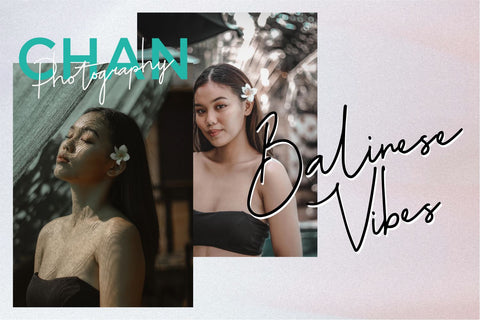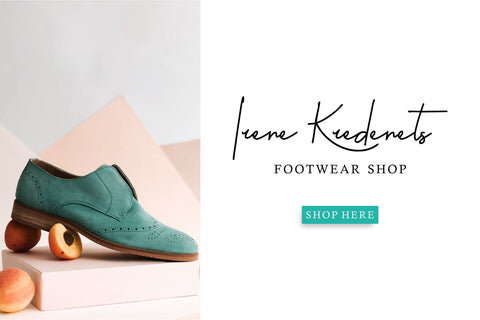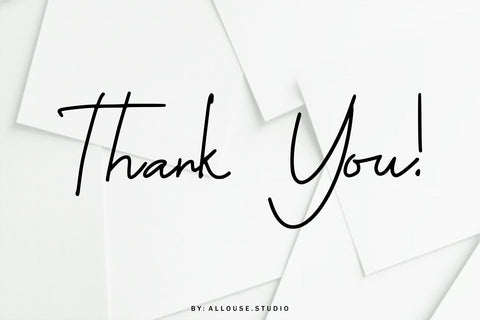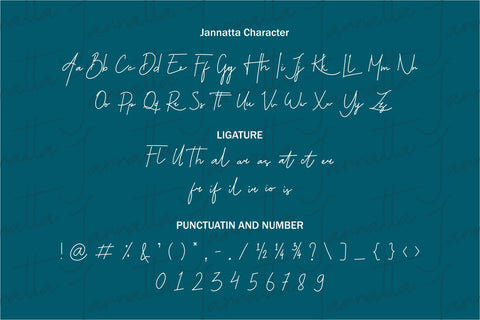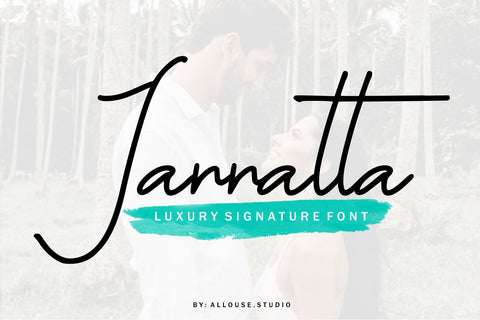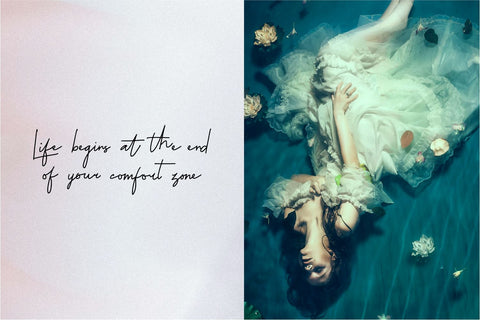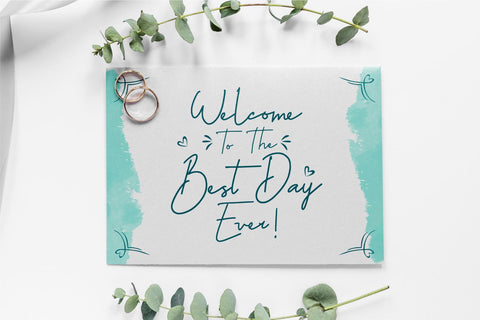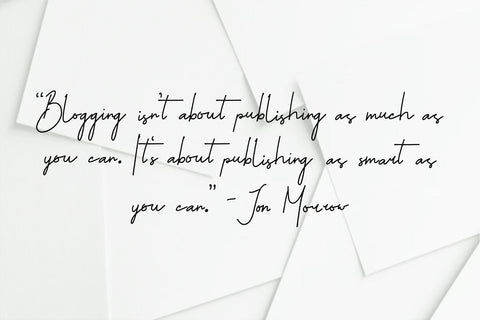
Jannatta - Luxury Signature Font
Proudly Present, Jannatta a Luxury Signature Font.
Jannata come with Ligatures and Multi-Lingual Support to fulfill your need.
Jannatta is perfect for any tittle, product packaging, branding project, megazine, social media, wedding, or just used to express words above the background.